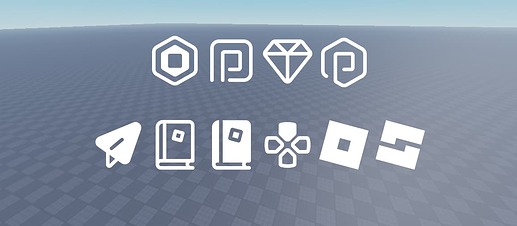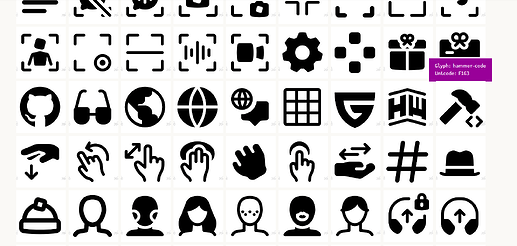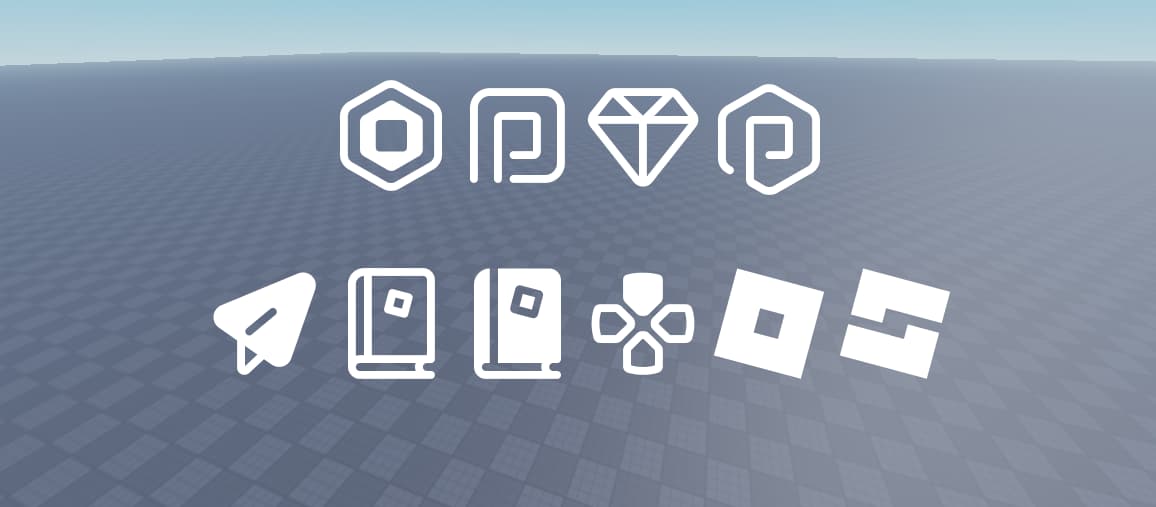
BuilderIcons
BuilderIcons is a Font that is used by Roblox to display things such as the icons within the Player List any various of other places.
They can also be found within images, but some icons appear to be available within that font. This font should be available in all Roblox installations under the same path.
:And if not, then someone at Roblox should start fixing that.
Fun Fact: this character here turns into the Discord Logo in this Font. I don’t know if this is a coincidence or not, because it’s a tilted cube here. (This should and is not meant to work in Roblox though. Which gives an interesting insight about Roblox’s security about unicodes.)
Edit: It is a coincidence because is the glyph that appears on all undefined unicodes for
BuilderSans.
Once assigned fonts are written in some kind of unique id’s
robuxpremiumdiamondroblox-plus
As in robux, premium diamond and roblox-plus produces the thing from the top of this post.
You can also use it with Rich Text, simply by doing this
Simply hover over an icon and you’ll see the name. The name is what you have to type into the text to display the icon.
Should I use this font?
There are various of interesting icons in there, such as a Gift Box, Controller Icons, other symbols, Backpack icons.
It is really unclear if some of these icons will stay on there or whether Roblox removes them from time to time.
If you really want one of these icons, you could export them separately and re-upload them as a picture.
It makes sense to use the font over uploading an image, because Roblox uses the font by default, so it is loaded into memory, and should be more efficient memory-wise?
Not sure.
Will Roblox break this font in the future?
I don’t know. But I feel like they should REALLY standardize or maybe integrate this Font OFFICIALLY. ![]()
Is it safe and does it support the Roblox Filter?
So… there are these unicode characters I think. These get filtered. However, these here do not. Which is a problem for a few of the icons in there. Now do note. If your game has Rich Text enabled anyhere with Roblox’s Text Filter. In theory it shouldn’t be your fault if something doesn’t get filtered.
The bad things to watch out for would be 3rd Party Site Icons within that font, such as GitHub, YouTube, LinkedIn, Guilded, etc. these shouldn’t display to users that aren’t policy-able to view it. Most of these get filtered, but not all. Guilded didn’t get filtered by Roblox’s Text Filter for example.
Along with that, this font seems to be also triggerable by Unicode. However, Roblox doesn’t display specific unicodes from HTML Tags, so it should be fine. In many ways, regular players could already use that font in Rich Text, so it wouldn’t be your fault.
Also copy pasting unicode directly, e.g. this one will not work, so it should be fine.